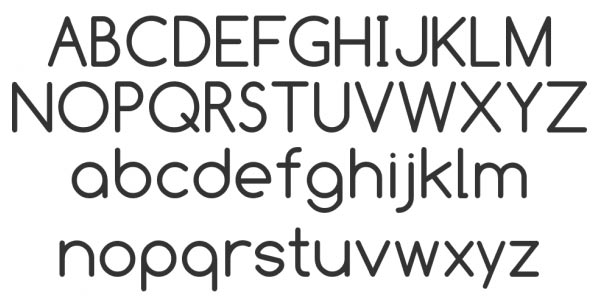
Sans Serif Font Alphabet. Alphabet fonts are perfect for: There is a key difference in “mood” between serif and sans serif fonts.
Some Sans Serif Font Families, Like Arial, Are Meant To Work As Body Copy — Text That Goes On.
(There Are Exceptions, Of Course.
Vector illustration alphabet in script font stock illustrations Thinoo is a new clean and modern free sans serif font family with thin and bold styles. Alphabet practice is a simple, clean, and thin lettered sans serif font.
It contains uppercase, lowercase, number, punctuation and symbols. Wedding invitations, fashion magazines, logos, signatures, photography, watermarks, wall displays, social media, advertisements, product packaging,. Sans serif fonts are usually described as modern, friendly and minimal.
Basic Latin Glyphs For 'Hikari' Font.
There is a key difference in “mood” between serif and sans serif fonts. Alphabet serif font is high quality basic font, designed by hardik. Determine the font that suits best for you.